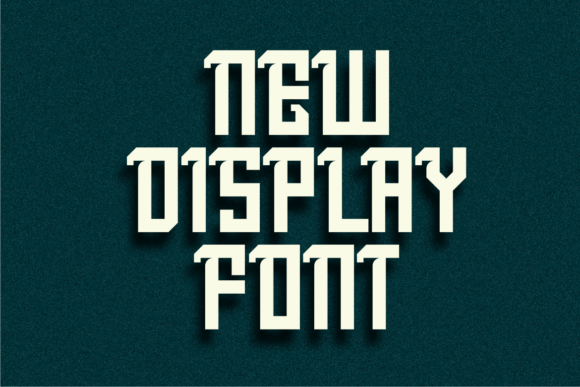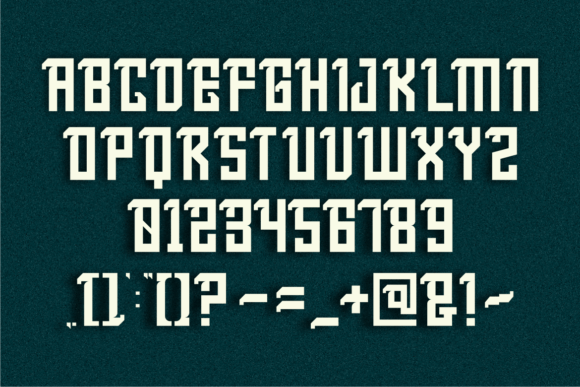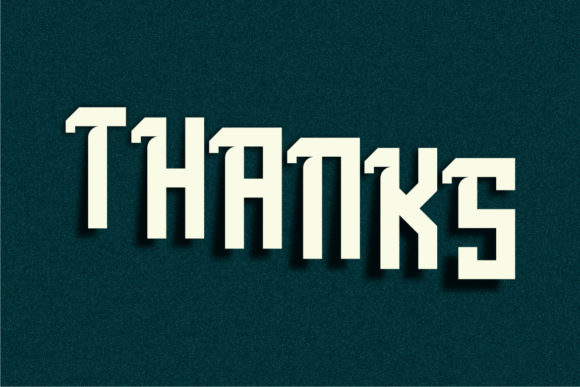
Trondols Font
TRONDOLS FONT SPECIMEN
Trondols is a bold slab serif font that feels beautiful, solemn, and modern. This font is perfectly suited for a wide variety of projects, such as signature, stationery, logo, wedding, typography quotes, magazine or book cover, website header, clothing, branding, packaging design, and more.